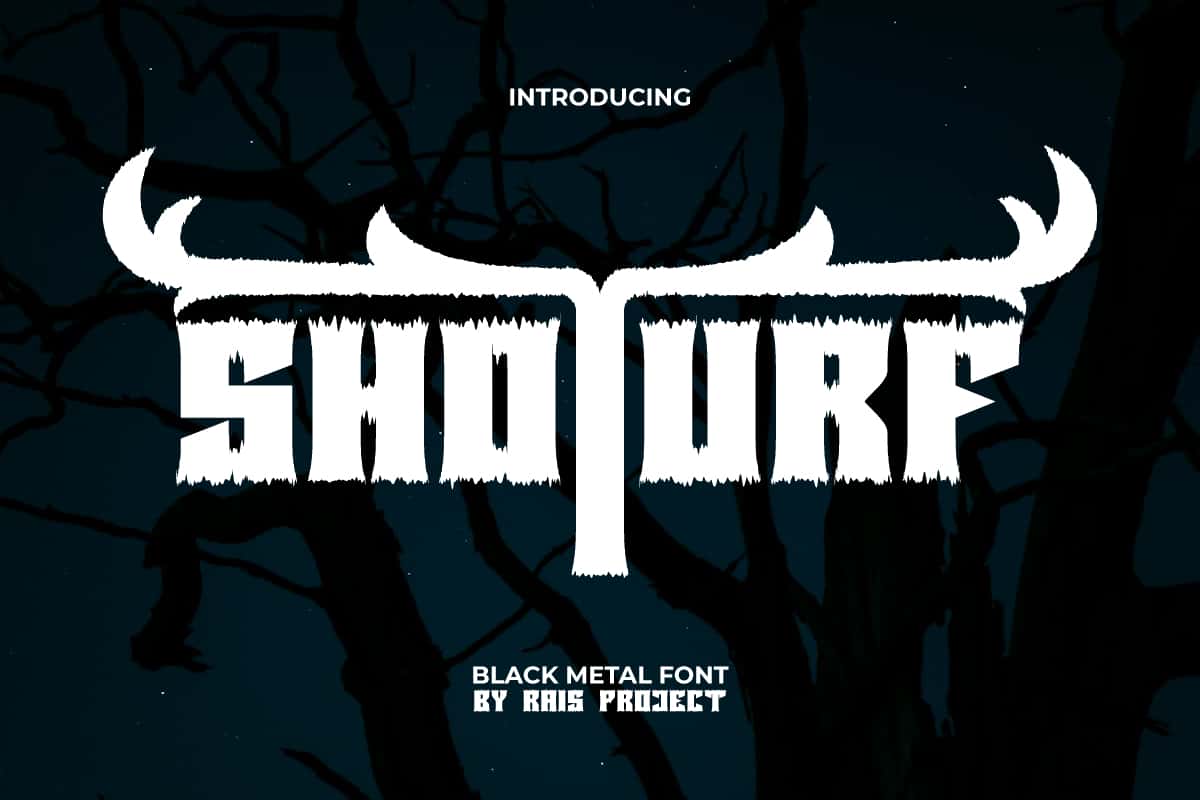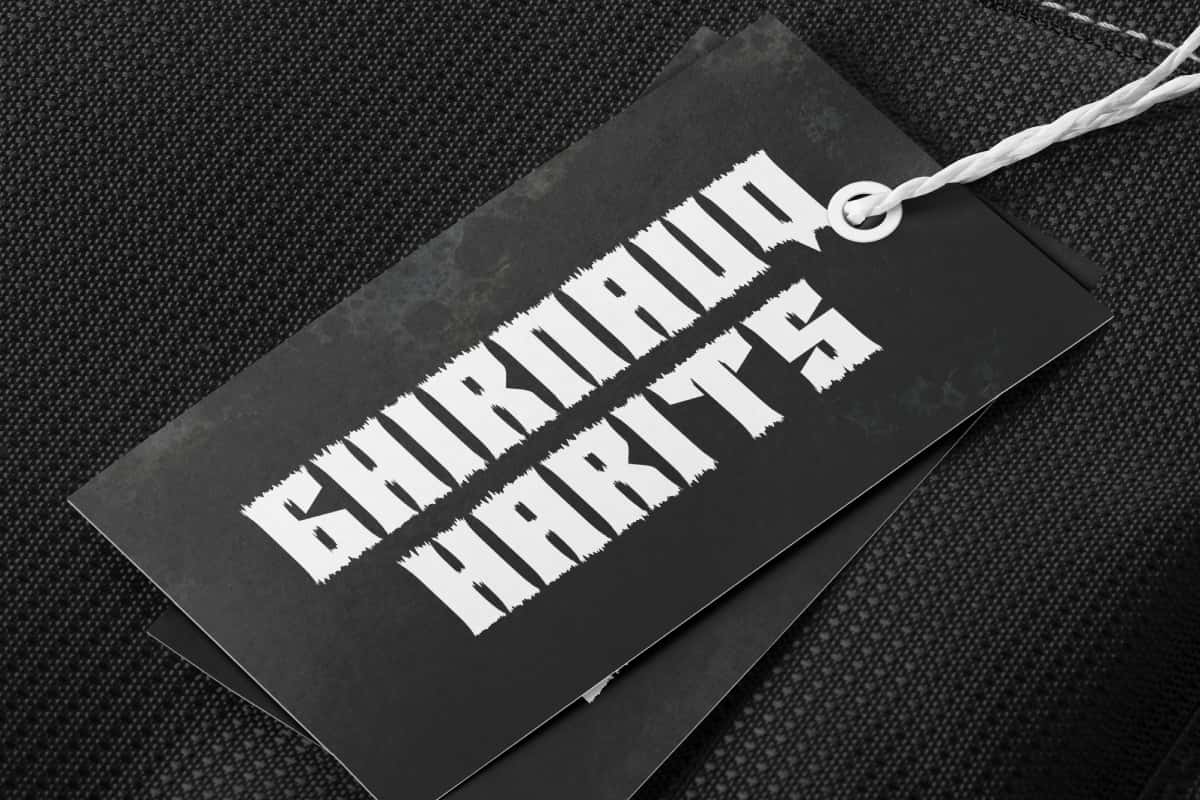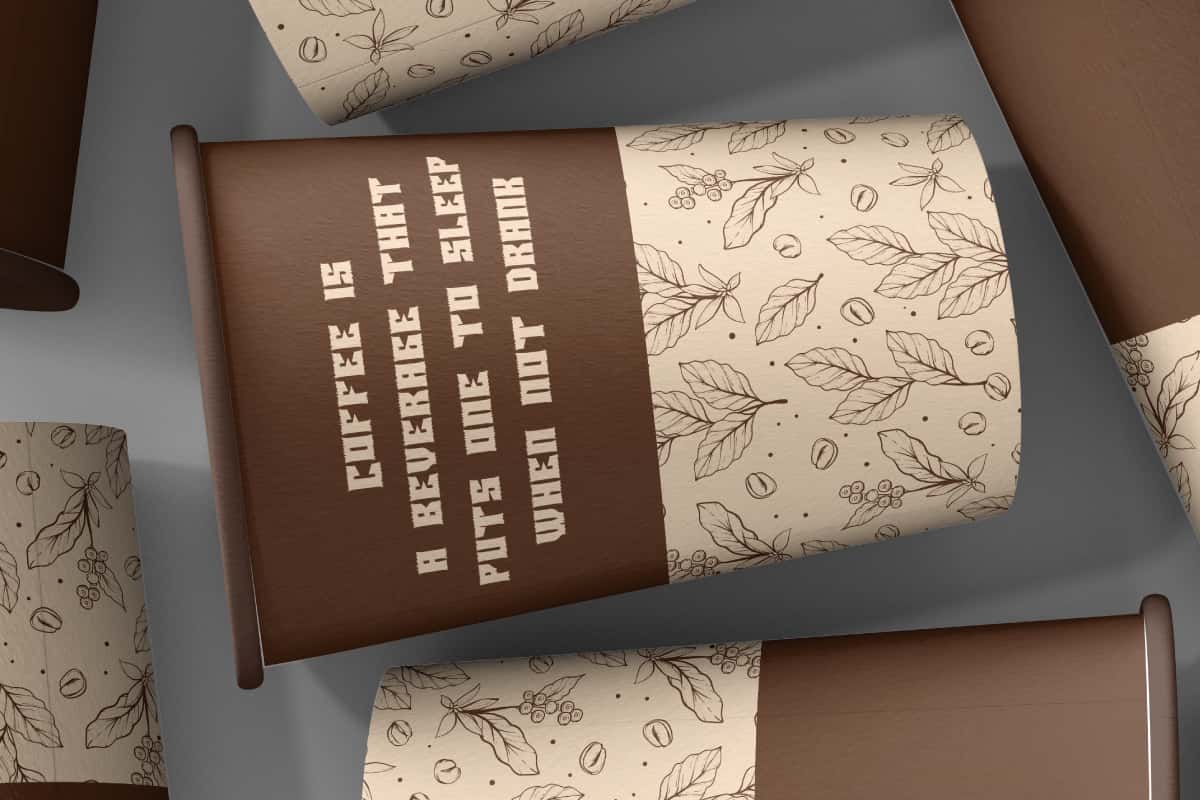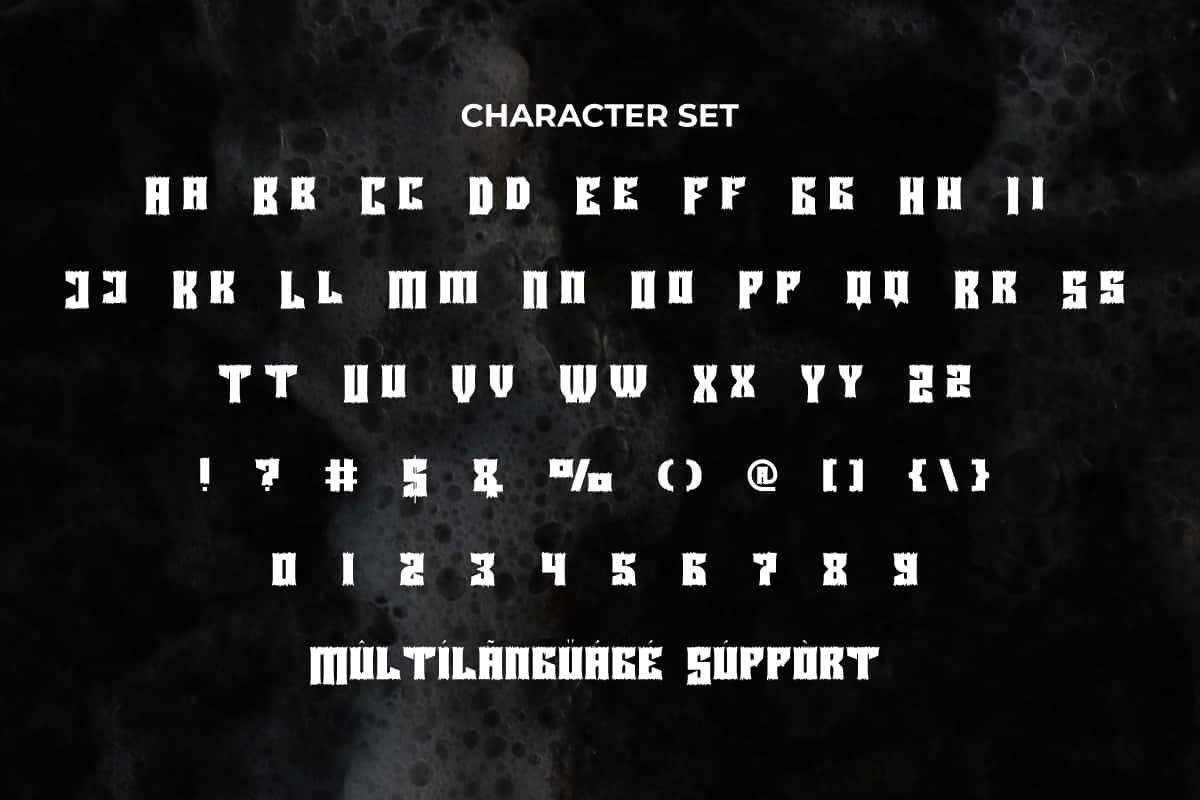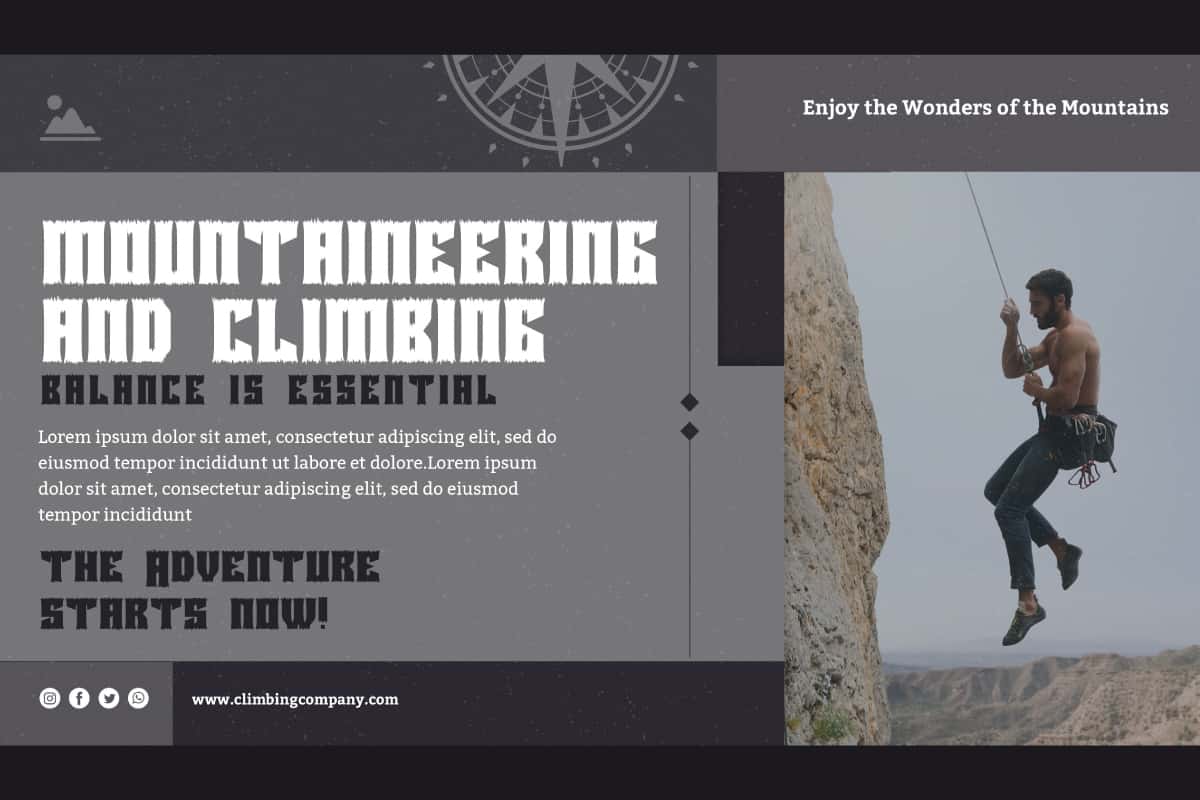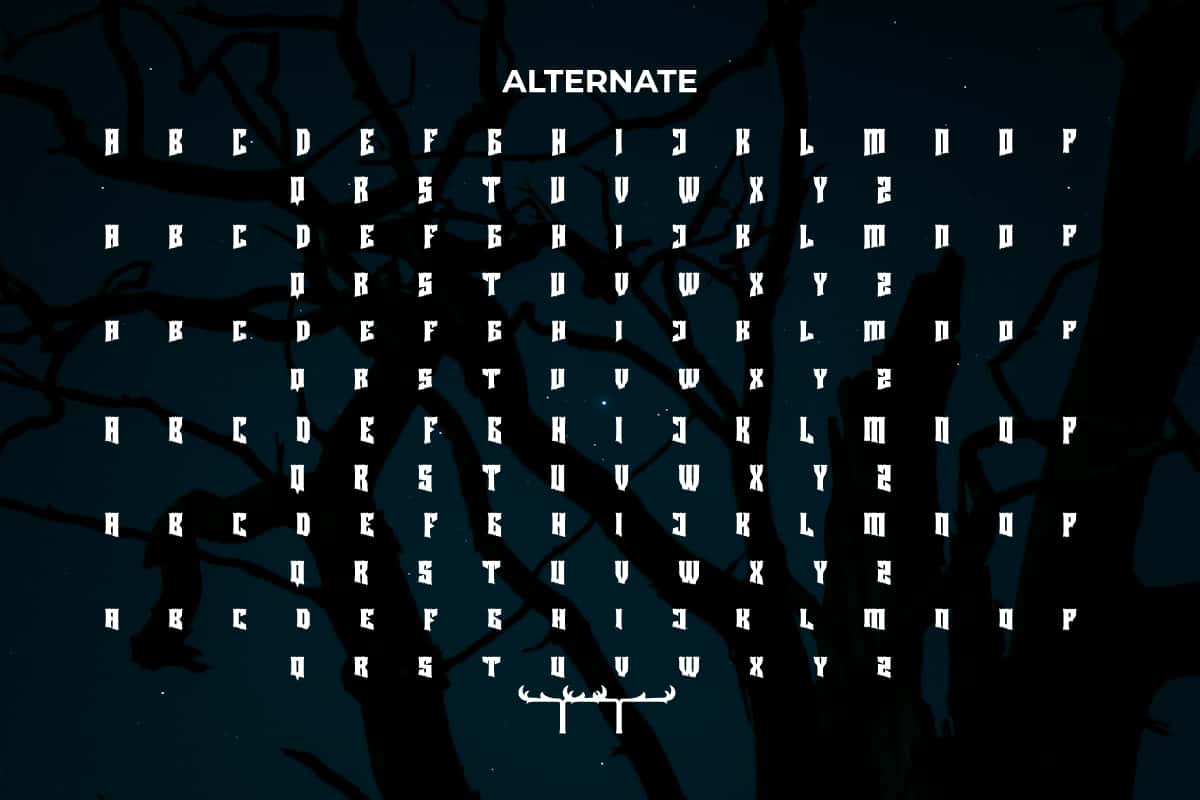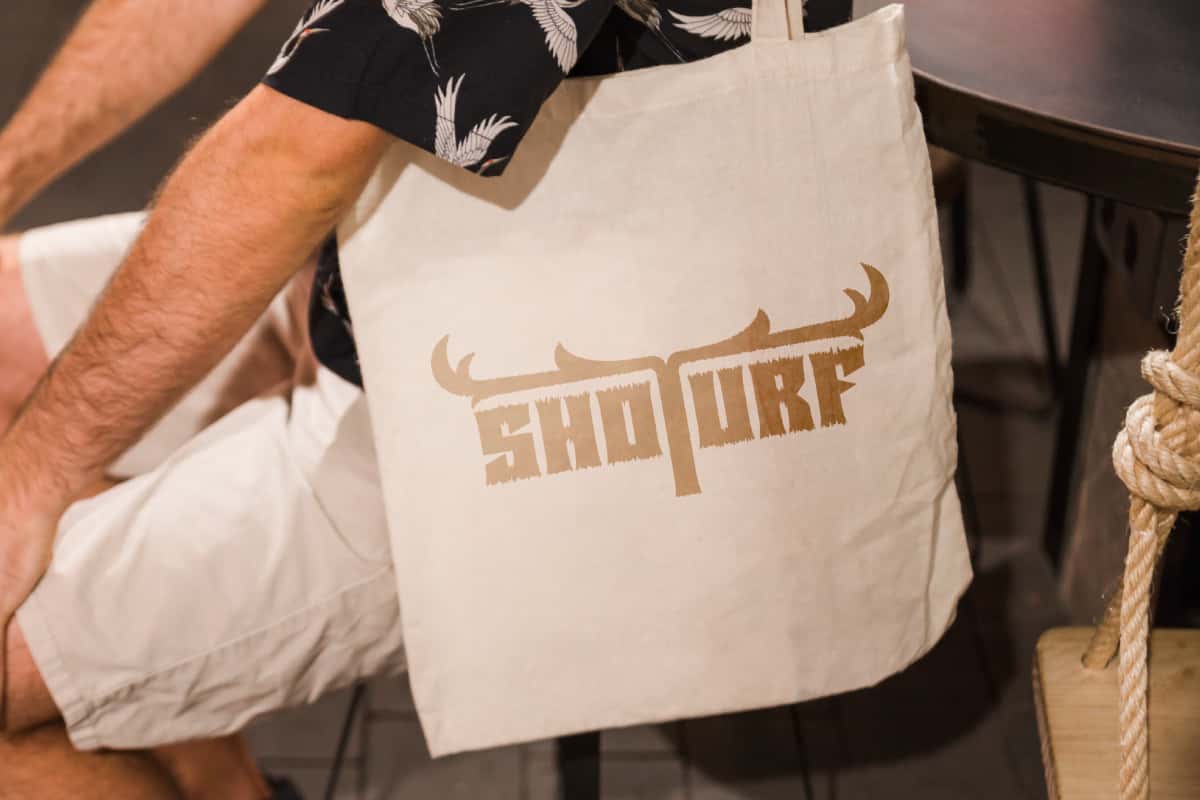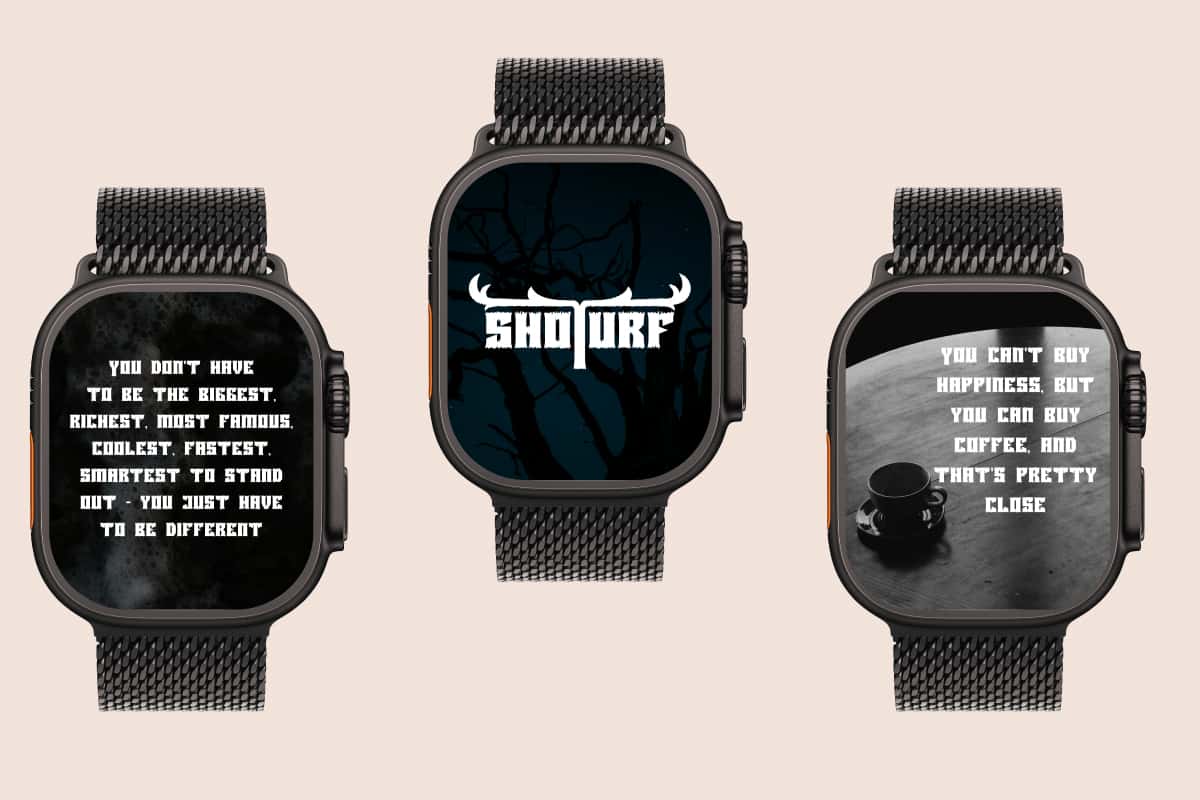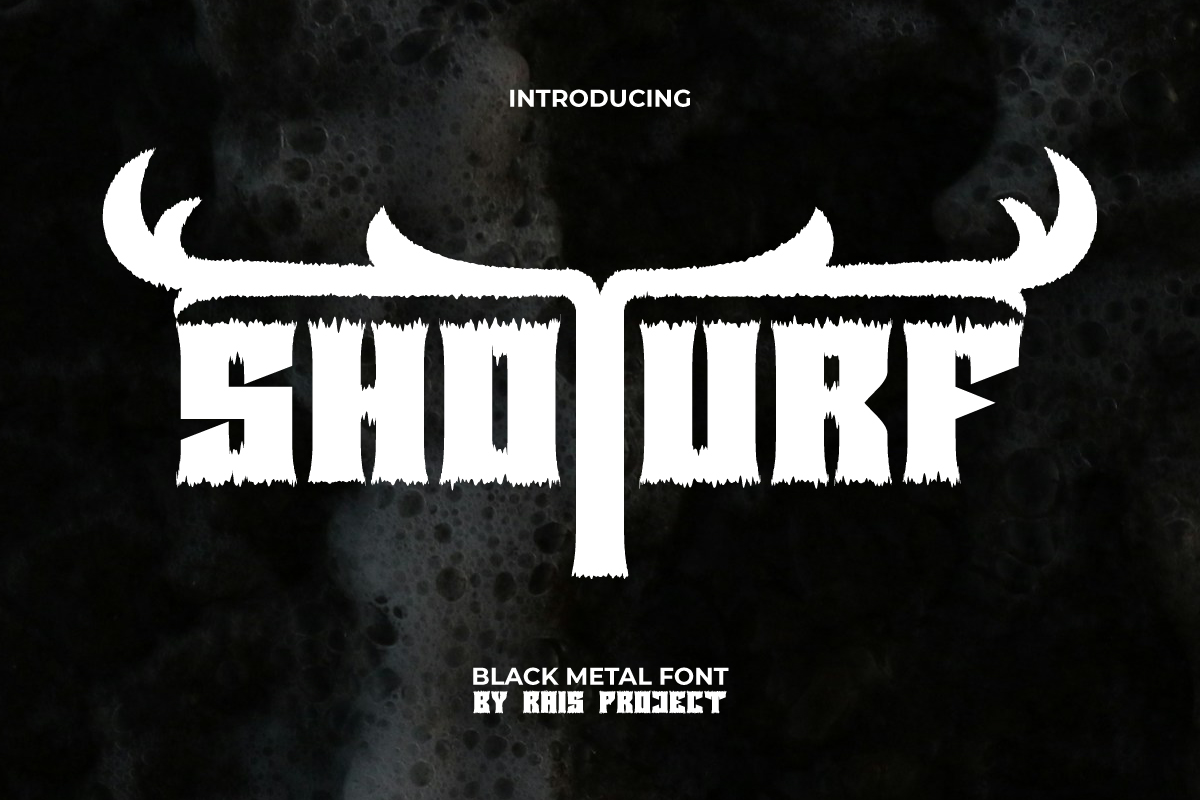
Shoturf Font is a Black Metal display font with a spooky vibe by RaisProject. This font display has thick characters with the top and bottom made rough like grass. Try this font now for various designs, such as poster, label, custom design, stationery, signage, invitation, quotes, and more! You can also enter any word you want so you can see what it looks like: